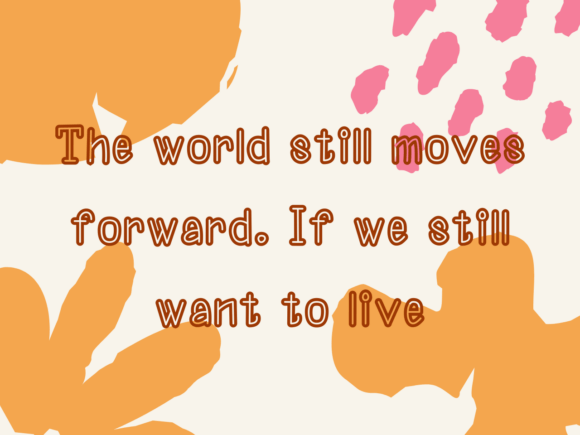
Merlie Font: Elevate Your Designs with a Unique and Creative Flair
Are you tired of using the same old fonts for your designs? Look no further than Merlie Font, a distinctive and stylish font that adds a special touch to any project. With its own unique style, Merlie Font is perfect for making your designs stand out from the crowd. In this article, we’ll explore the features and benefits of Merlie Font, and how it can elevate your designs to the next level.
What is Merlie Font?
Merlie Font is a one-of-a-kind font that boasts a fresh and distinctive look. Its creative flair makes it perfect for a wide range of design applications, from letters and greeting cards to wedding invitations, quotes, and more. Whether you’re a designer, artist, or simply someone who loves to create, Merlie Font is a versatile and stylish choice that will take your work to new heights.
Key Features of Merlie Font
- Unique Style: Merlie Font has its own distinct style that sets it apart from other fonts.
- Creative Flair: This font adds a special touch to any design, making it perfect for creative projects.
- Versatility: Merlie Font can be used for a wide range of design applications, from letters and greeting cards to wedding invitations and quotes.
- Fresh and Distinctive Look: This font gives your work a fresh and distinctive look that will make it stand out from the crowd.
Uses of Merlie Font
Merlie Font is perfect for a variety of design applications, including:
- Letters: Add a personal touch to your letters with Merlie Font’s unique style.
- Greeting Cards: Make your greeting cards stand out with this font’s creative flair.
- Wedding Invitations: Add a touch of elegance and sophistication to your wedding invitations with Merlie Font.
- Quotes: Make your quotes more inspiring and visually appealing with this font.
- Goodnotes: Use Merlie Font to add a personal touch to your Goodnotes.
- Planners: Make your planners more stylish and functional with this font.
- Handwritten Notes: Add a personal touch to your handwritten notes with Merlie Font’s unique style.
- Logos: Use Merlie Font to create a distinctive and memorable logo for your brand.
Benefits of Using Merlie Font
There are many benefits to using Merlie Font in your designs. Here are just a few:
- Stand Out from the Crowd: With Merlie Font, your designs will stand out from the crowd and grab attention.
- Unique and Creative: This font adds a unique and creative touch to your designs, making them more visually appealing.
- Versatility: Merlie Font can be used for a wide range of design applications, making it a versatile choice.
- Easily Readable: This font is easily readable, making it perfect for designs that require a clear and concise message.
Tips and Tricks for Using Merlie Font
Here are some tips and tricks for using Merlie Font:
- Experiment with Different Sizes: Experiment with different sizes to find the perfect fit for your design.
- Pair with Other Fonts: Pair Merlie Font with other fonts to create a unique and creative look.
- Use for Headings and Titles: Use Merlie Font for headings and titles to add a touch of elegance and sophistication.
- Add a Personal Touch: Add a personal touch to your designs with Merlie Font’s unique style.
In conclusion, Merlie Font is a unique and creative font that adds a special touch to any design project. With its own distinct style and creative flair, it’s perfect for making your designs stand out from the crowd. Whether you’re a designer, artist, or simply someone who loves to create, Merlie Font is a versatile and stylish choice that will take your work to new heights.
- What is Merlie Font? Merlie Font is a unique and creative font that adds a special touch to any design project.
- What are the uses of Merlie Font? Merlie Font can be used for a wide range of design applications, including letters, greeting cards, wedding invitations, quotes, Goodnotes, planners, handwritten notes, logos, and more.